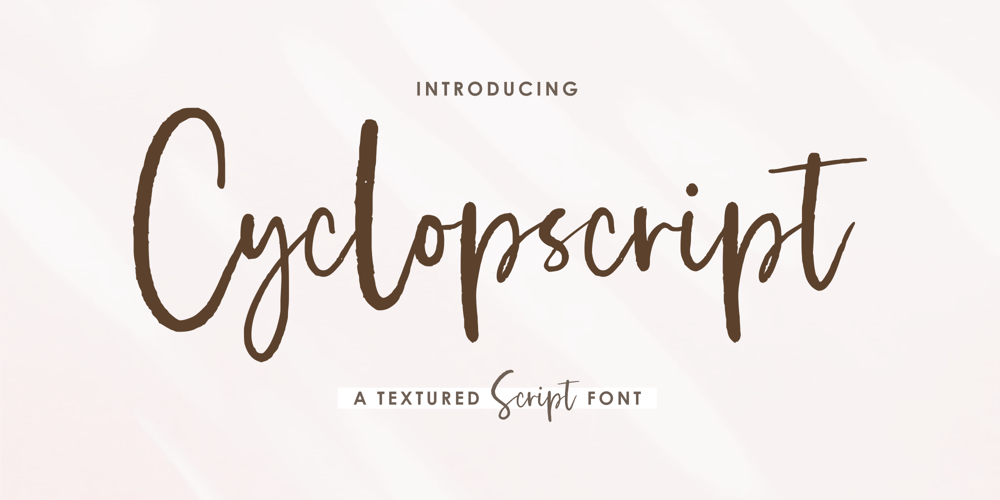
Cyclopscript Font Family was designed by Fachrizal Yusuf and published by Allouse Studio. Cyclopscript contains 1 styles and family package options. Proudly Presenting, Cyclopscript A Textured Script Font.Cyclopscript is perfect for any titles, logo, product packaging, branding project, megazine, social media, wedding, or just used to express words above the background.Cyclopscript also come with Multi-Lingual Support.Enjoy the font, feel free to comment or feedback, send me PM or email. Thank You!